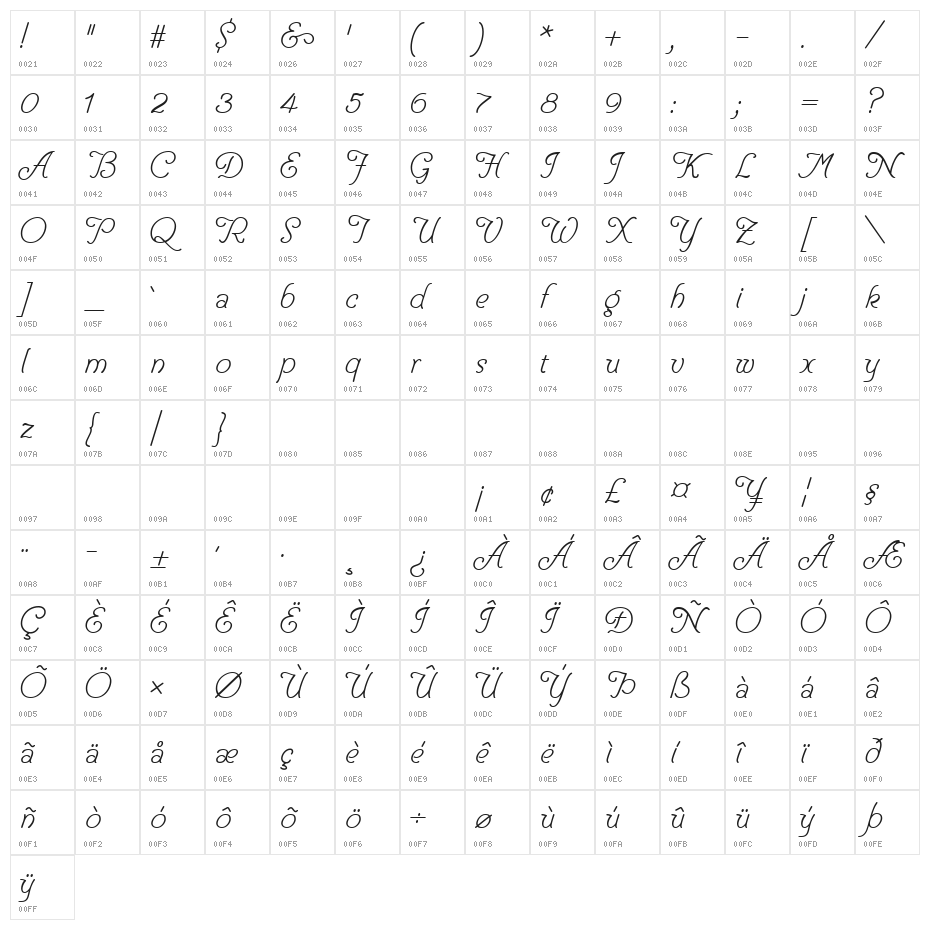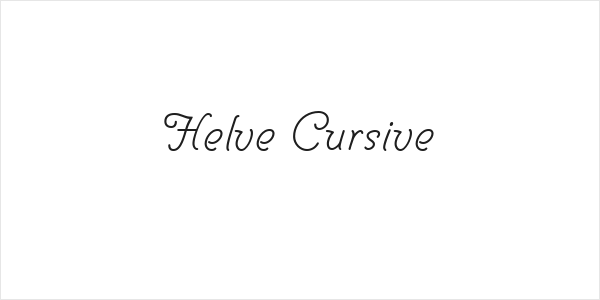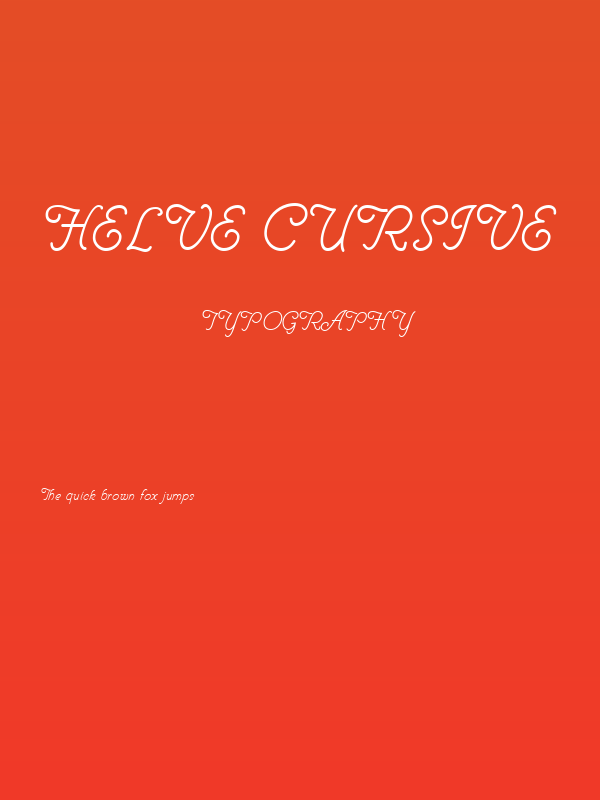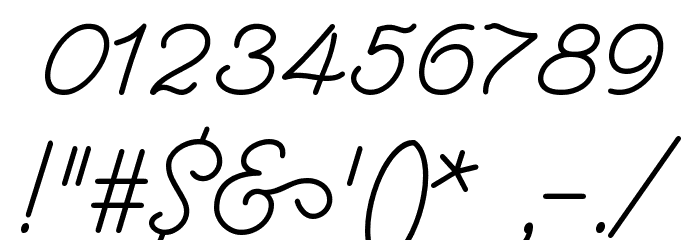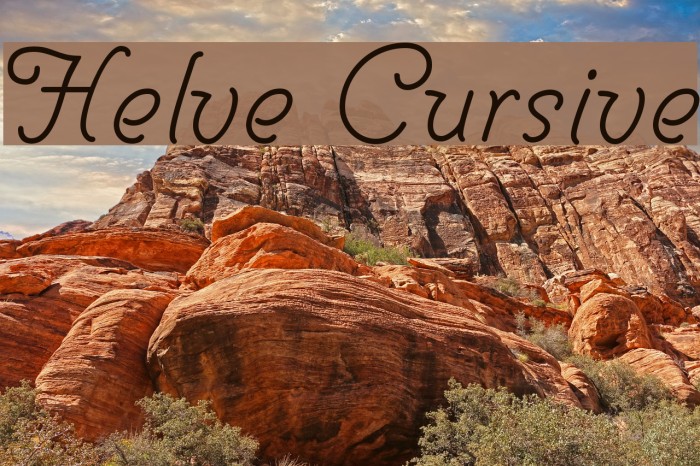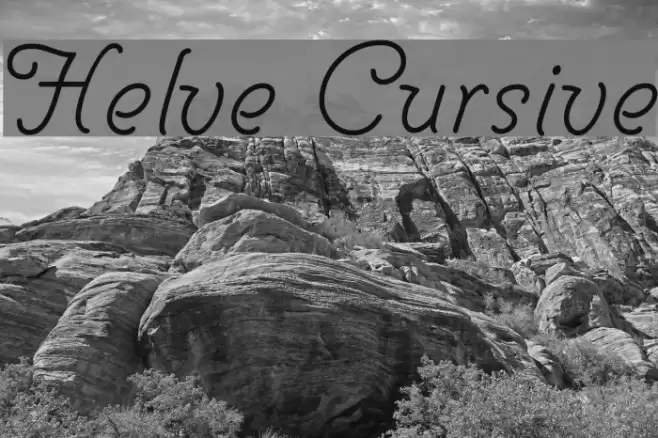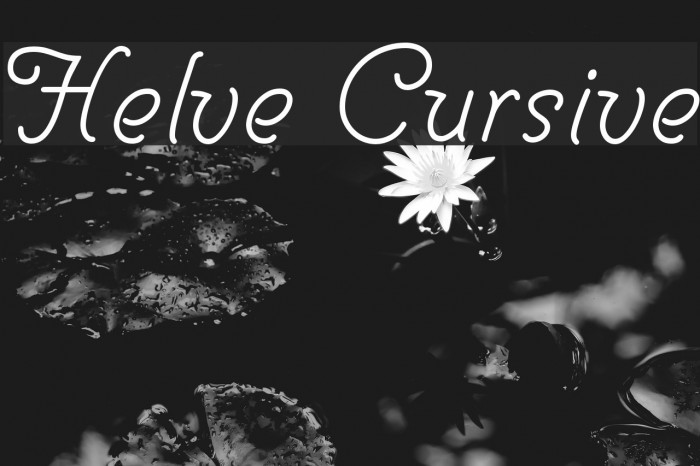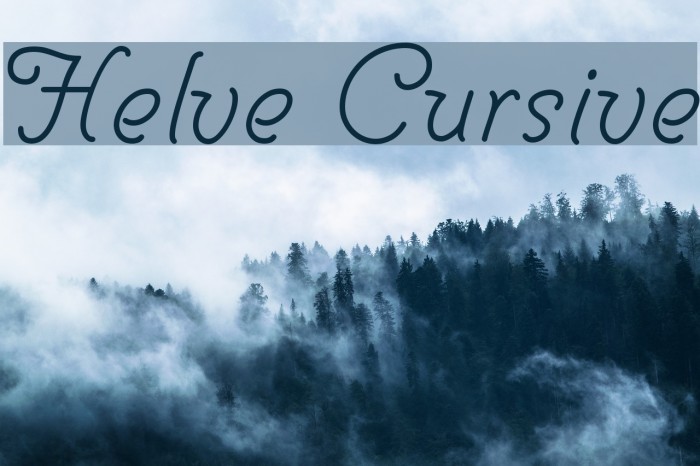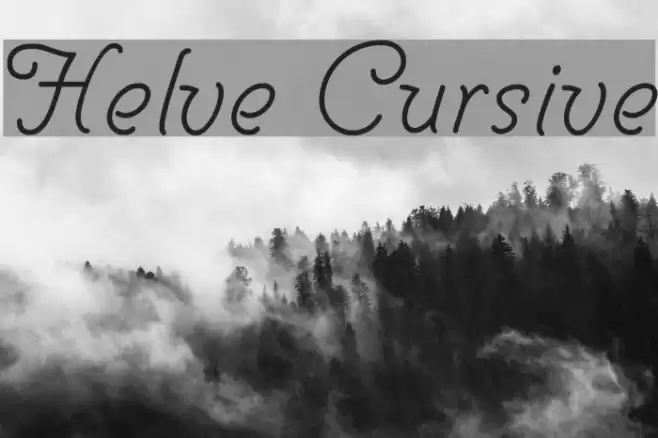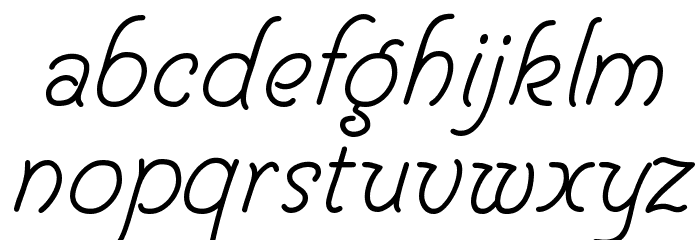
Helve Cursive Font
Helve Cursive Description
This elegant cursive font features smooth, flowing lines that create a sense of fluidity and grace. The uppercase letters are characterized by their sweeping curves and loops, while the lowercase letters maintain a consistent slant, enhancing the script's cohesive appearance. The numerals are distinct yet harmonize well with the alphabet, and the special characters are thoughtfully designed to complement the overall style. This font's delicate strokes and balanced proportions make it suitable for a variety of applications where a touch of sophistication is desired.
| Overall Style | Elegant |
| Use Case | Logos, Invitations, Artistic projects |
| Proposed Projects | Ideal for wedding invitations, elegant branding, personal stationery, and artistic projects requiring a refined touch. |